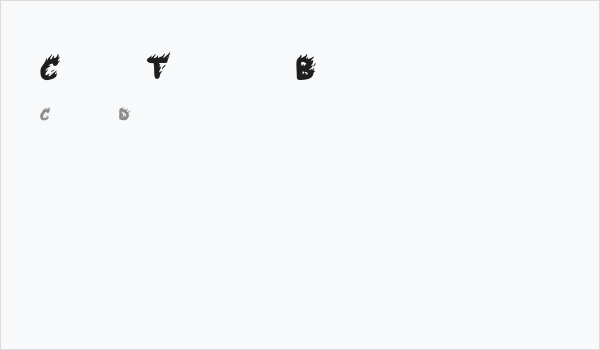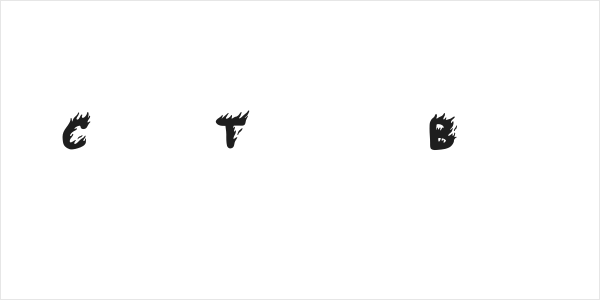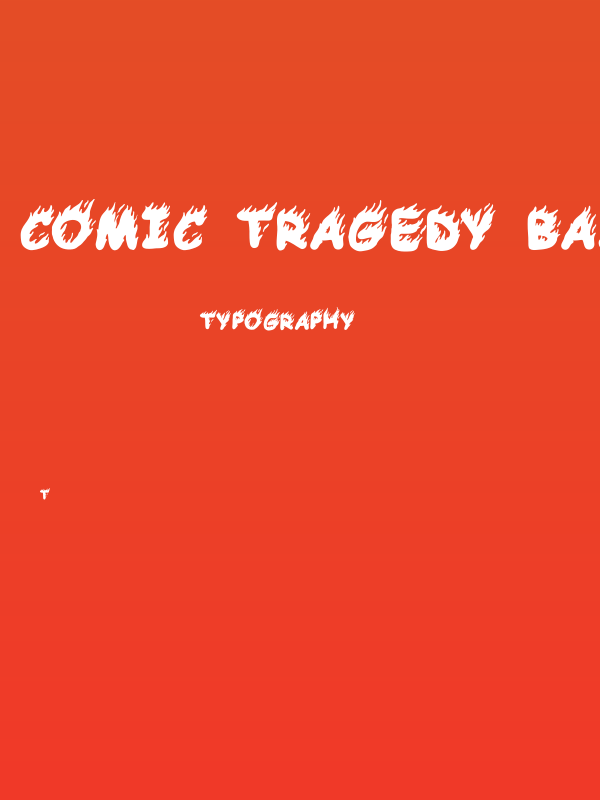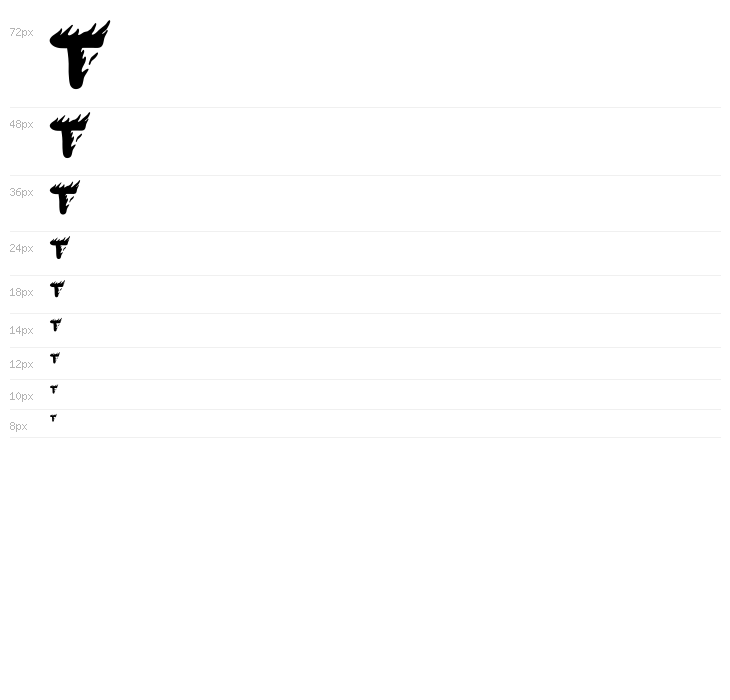
Comic Tragedy Base Font
Comic Tragedy Base Description
This font features a bold and dynamic style with letters that appear to be engulfed in flames. The uppercase characters are designed with a sense of movement and energy, making them stand out dramatically. The strokes are thick and consistent, creating a strong visual impact. The fiery embellishments give the font a unique and eye-catching appearance, suitable for projects that require a sense of excitement or intensity. The overall design is both playful and aggressive, making it ideal for creative and unconventional uses.
| Proposed Projects | Ideal for posters, event flyers, video game titles, or any project needing a fiery, energetic look. |